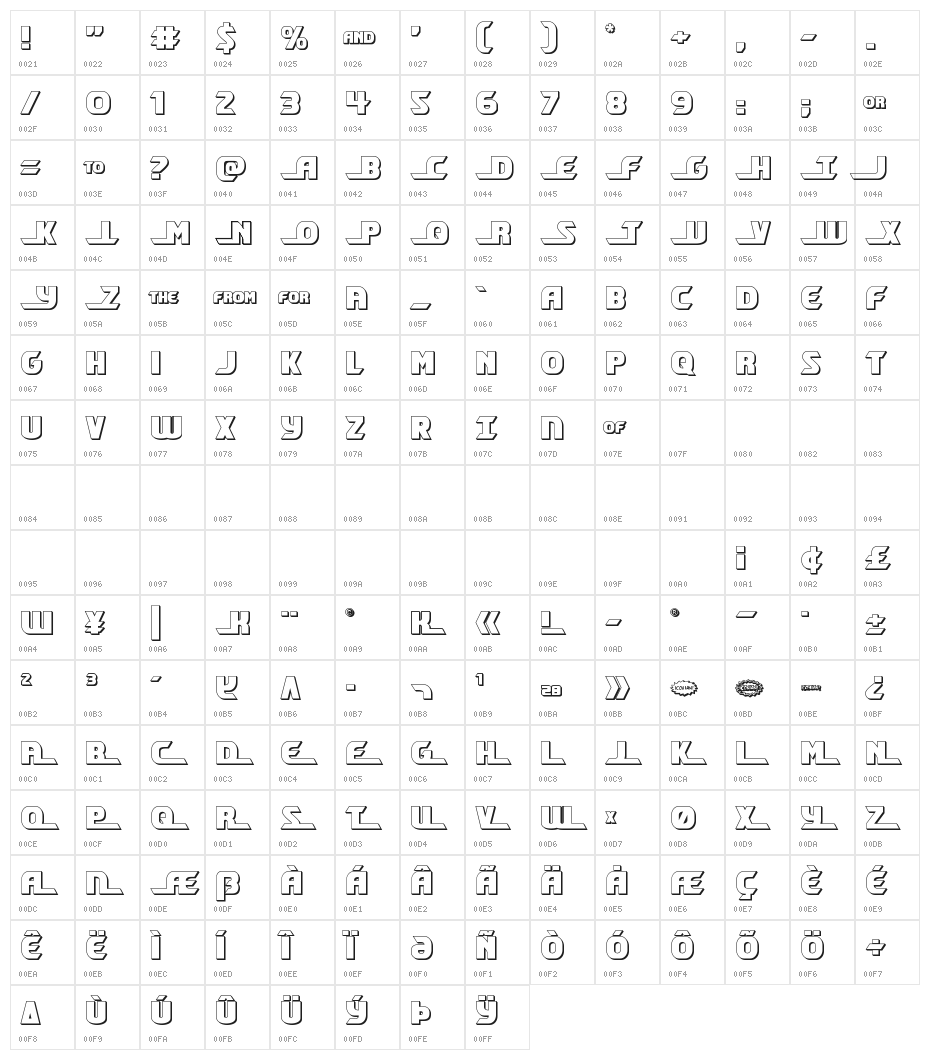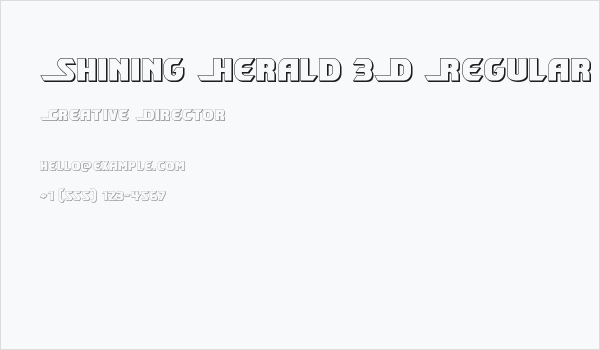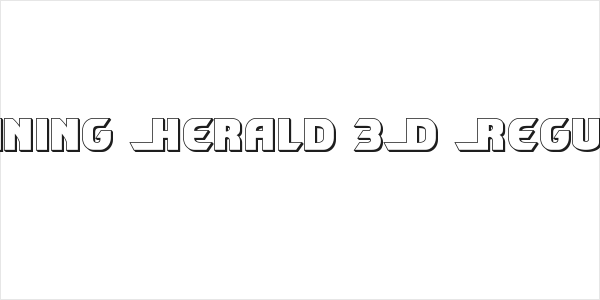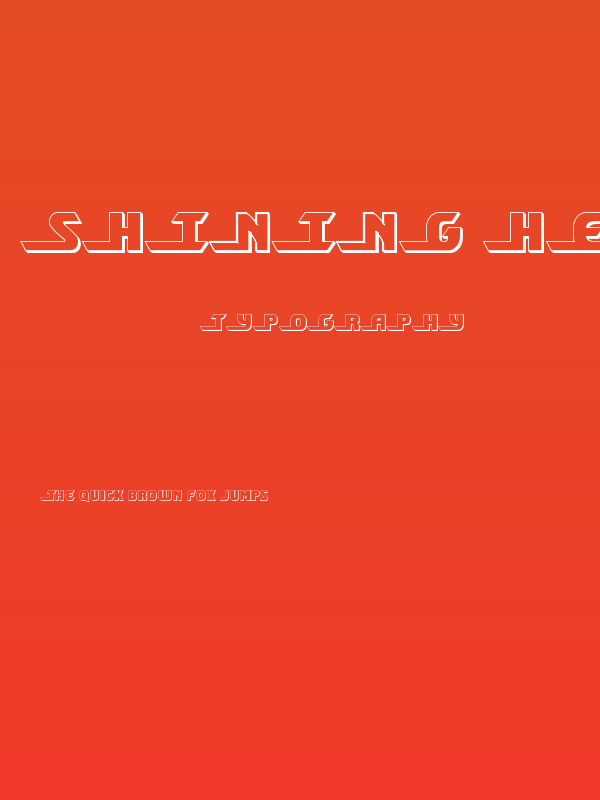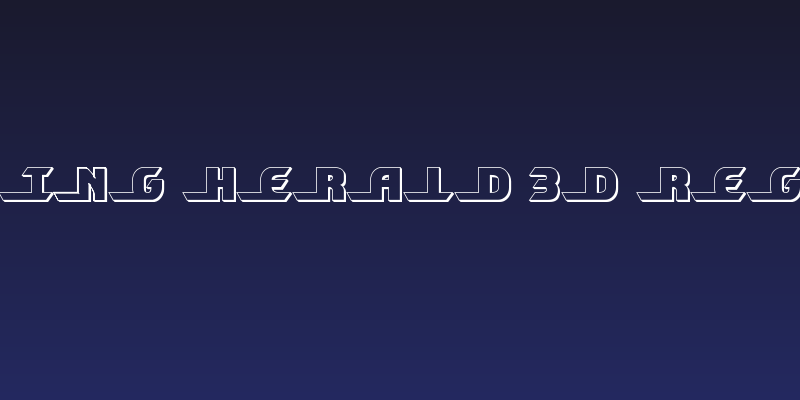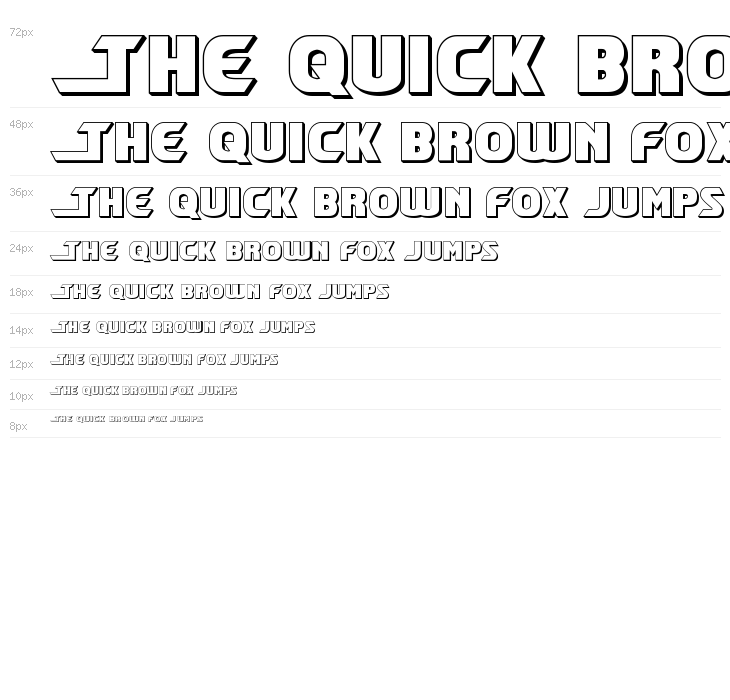
Shining Herald 3D Regular Font
Shining Herald 3D Regular Description
This font features a bold, three-dimensional style with a strong geometric influence. The uppercase letters are characterized by their solid, block-like appearance, giving a sense of depth and structure. The lowercase letters maintain this boldness, ensuring consistency across the typeface. Numbers and special characters are equally robust, making them stand out with their clear, defined edges. The font's design is modern and eye-catching, ideal for projects that require a strong visual impact. Its unique 3D effect adds a layer of sophistication and creativity, making it suitable for a variety of design applications.
| Proposed Projects | Ideal for headlines, posters, logos, and any design requiring a bold statement. |